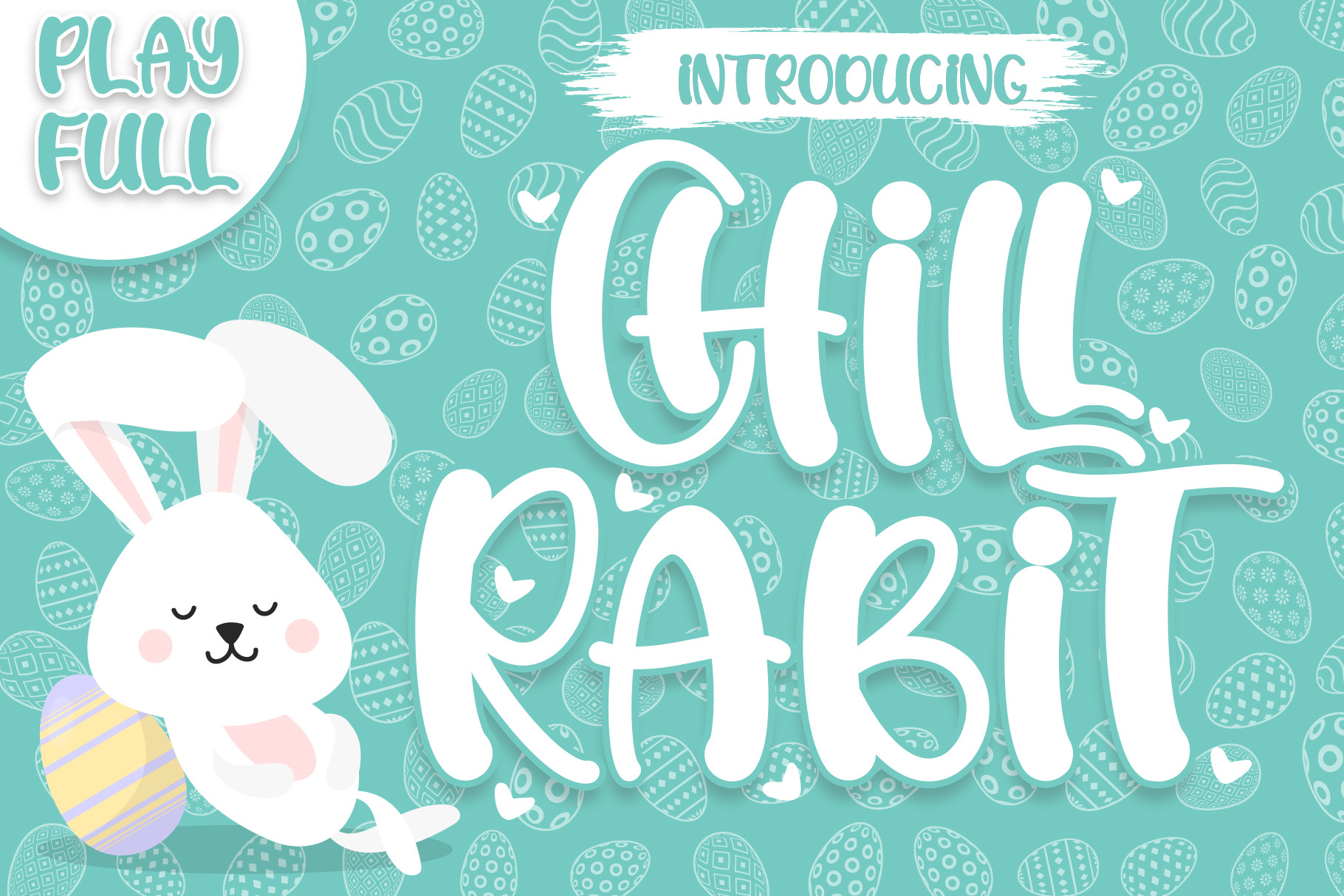
Chill Rabit - Display Font
Chill Rabit is a fun and playful display font. It has a cute style and great readability. It’s perfect for cards, branding, stationery, blog designs, custom art, quotes, custom stamps, custom embossers, and so much more!